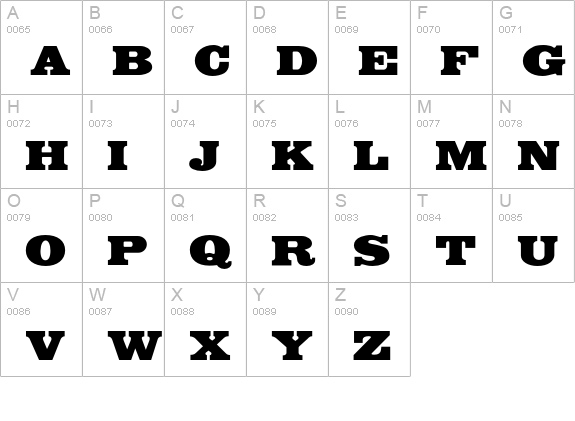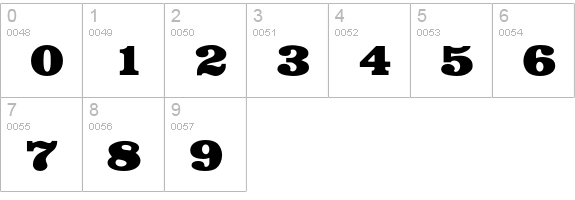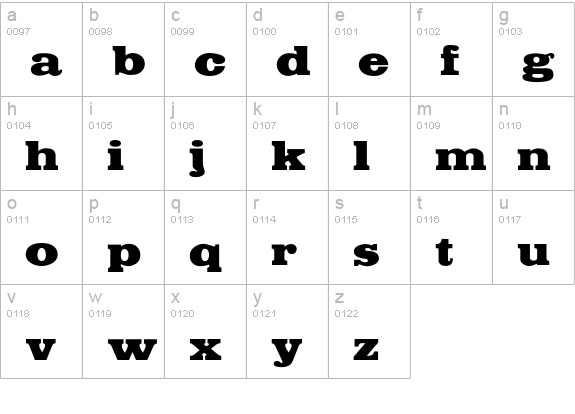
Iraklion font is a stunning display typeface that exudes elegance and charm. With its unique combination of bold lines and delicate curves, this font is perfect for making a statement in any design project. Whether you're designing a logo, creating a poster, or crafting a website, Iraklion font will add a touch of sophistication and style. What sets Iraklion font apart is that it is completely free to use. That's right, you can download this beautiful font without spending a dime. FontsMarket.com, a trusted source for high-quality fonts, offers Iraklion font for free download. This means that you can bring this stunning typeface into your creative projects without breaking the bank. Iraklion font is ideal for both print and digital designs. Its clean and legible letterforms make it perfect for headlines, titles, and other prominent text elements. The font's versatility allows it to be used in a variety of design styles, from modern and minimalistic to vintage and retro. With its wide range of weights and styles, Iraklion font offers endless possibilities for creative exploration. You can choose from regular, bold, italic, and more to achieve the exact look and feel you desire. This font also supports multiple languages, making it suitable for international projects. Iraklion font is not only visually appealing but also easy to use. Its well-designed characters ensure smooth readability, even at smaller sizes. Whether you're a professional designer or a beginner, you'll find this font a joy to work with. So why wait? Elevate your designs with the stunning Iraklion font, freely available to download at FontsMarket.com. Embrace its elegance and versatility to create eye-catching visuals that will captivate your audience. Don't miss out on this amazing opportunity to enhance your creative projects with a top-notch font. Download Iraklion font today and let your imagination run wild.